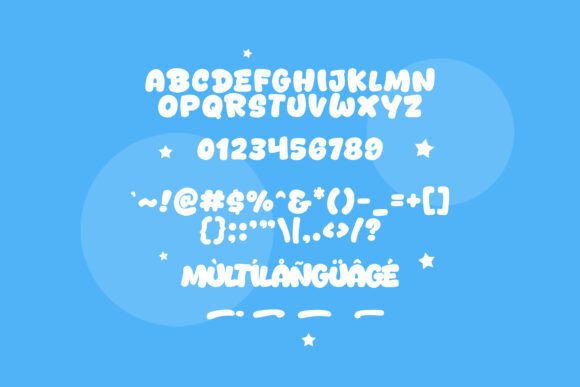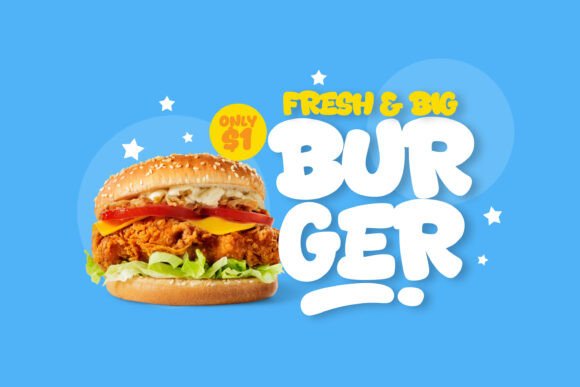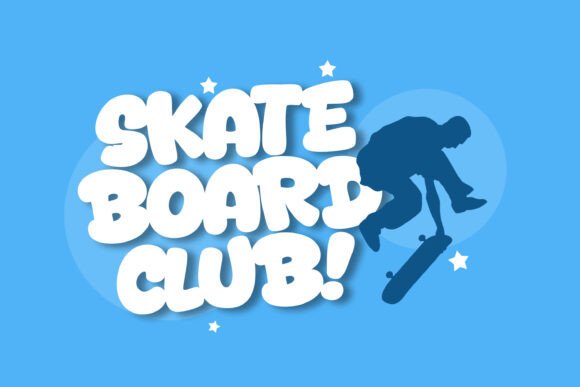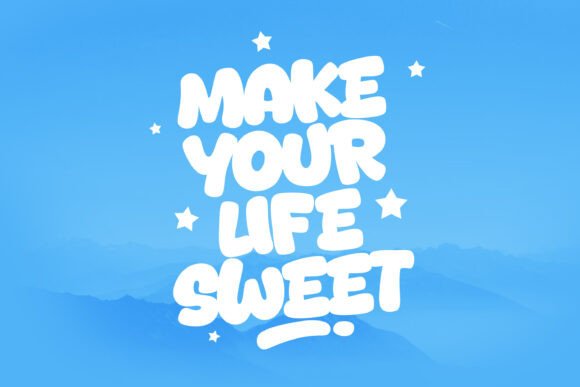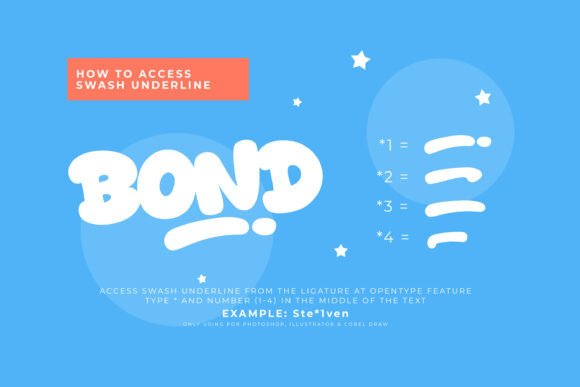
Bond Time Font: Elevate Your Designs with a Modern and Cute Display Font
Are you a designer or crafter looking for a font that can add a touch of modernity and cuteness to your projects? Look no further than Bond Time Font! This versatile display font is perfect for a wide range of applications, from posters and logos to magazines, book covers, banners, and more. In this article, we’ll explore the features and benefits of Bond Time Font, and show you how it can help take your designs to the next level.
What is Bond Time Font?
Bond Time Font is a modern and cute display font designed to make your designs stand out. Its unique and playful style makes it perfect for creative projects that require a touch of personality. Whether you’re working on a logo, poster, or social media graphic, Bond Time Font is sure to grab attention and leave a lasting impression.
Key Features of Bond Time Font
- Modern and Cute Style: Bond Time Font boasts a fresh and contemporary design that’s both modern and adorable.
- Versatile: This font is perfect for a wide range of projects, including posters, logos, magazines, book covers, banners, and more.
- Easily Customizable: Bond Time Font can be easily matched with a vast array of projects, making it a great addition to your font library.
- High-Quality Design: The font is designed with precision and attention to detail, ensuring a high-quality finish in every project.
Benefits of Using Bond Time Font
So, why choose Bond Time Font for your next project? Here are just a few benefits of using this amazing font:
- Adds Personality to Your Designs: Bond Time Font’s unique style adds a touch of personality to your designs, making them more engaging and memorable.
- Saves Time: With its versatility and customizability, Bond Time Font saves you time and effort in finding the perfect font for your project.
- Enhances Creativity: This font’s modern and cute style inspires creativity and encourages you to think outside the box.
- Perfect for Branding: Bond Time Font is ideal for branding projects, as it helps create a consistent and recognizable visual identity.
How to Use Bond Time Font
Using Bond Time Font is easy! Here are a few tips to get you started:
- Pair it with Other Fonts: Experiment with pairing Bond Time Font with other fonts to create a unique and harmonious design.
- Adjust the Size and Color: Play with the font size and color to create visual interest and hierarchy in your design.
- Use it for Headings and Titles: Bond Time Font is perfect for headings and titles, as it adds a touch of personality and grabs attention.
Who Can Benefit from Bond Time Font?
Bond Time Font is perfect for a wide range of designers and crafters, including:
- Graphic Designers: Add a touch of modernity and cuteness to your designs with Bond Time Font.
- Logicians and Branding Experts: Create a consistent and recognizable visual identity with this versatile font.
- Crafters and Makers: Use Bond Time Font to add a personal touch to your handmade projects and products.
- Marketing and Advertising Professionals: Create eye-catching and memorable ads with Bond Time Font.